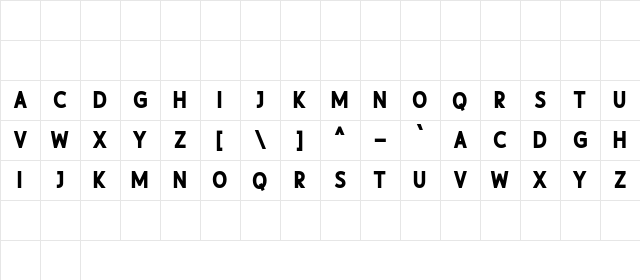
Complete Museful Black glyph index. Displaying only characters natively supported by Museful Black font.
Museful is a composed and adaptable typeface that performs quietly and consistently across a wide range of design contexts.